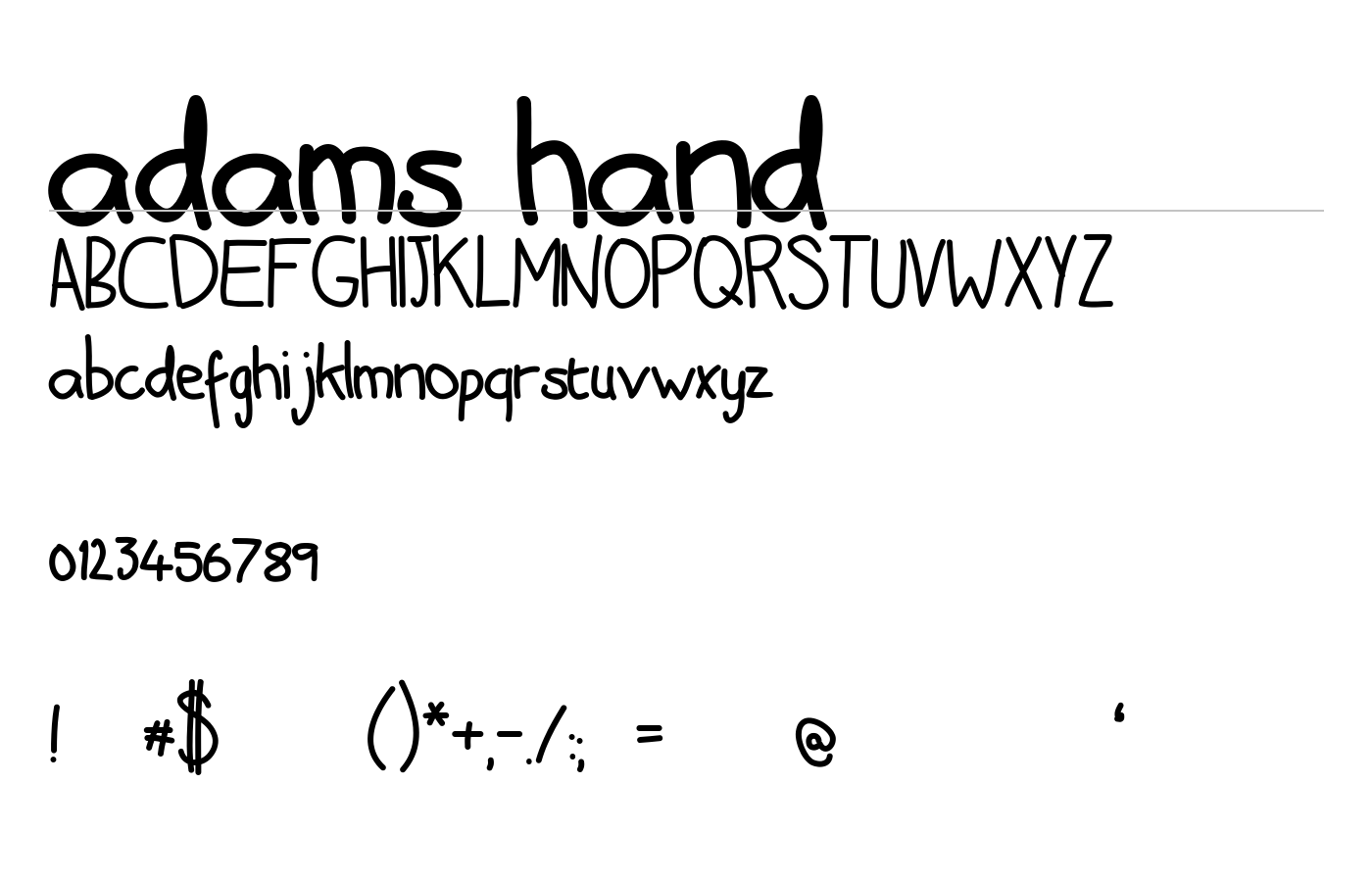
Adams Hand is a playful and casual handwritten sans serif font with a light weight and narrow width, featuring tall, slightly irregular letterforms that mimic natural handwriting. Its friendly and approachable style makes it ideal for informal designs, children’s materials, or creative projects that want to convey warmth and personality. This font works best in headlines, invitations, and branding where a personal, lively touch is desired.
adams hand Font
About adams hand Font
| Font family | adams hand Font |
| Designer | Colt Design |